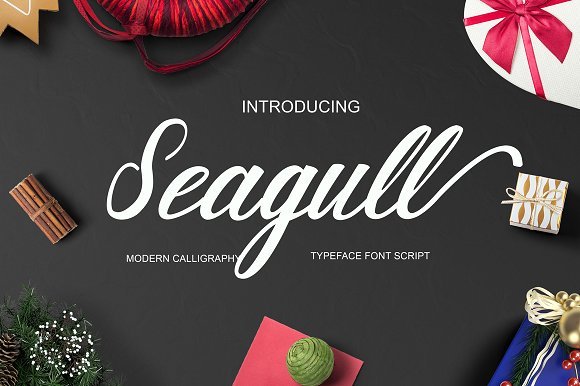
Seagull is modern handlettered Font. This font was designed by handwriting, and it has a modern and unique forms of calligraphy, the writing style is very natural.
This font Suitable for any project products, such as wedding invitations, greeting cards, design of water-based paints, correspondence, and a variety of other purposes and more. this font multiple international language support.